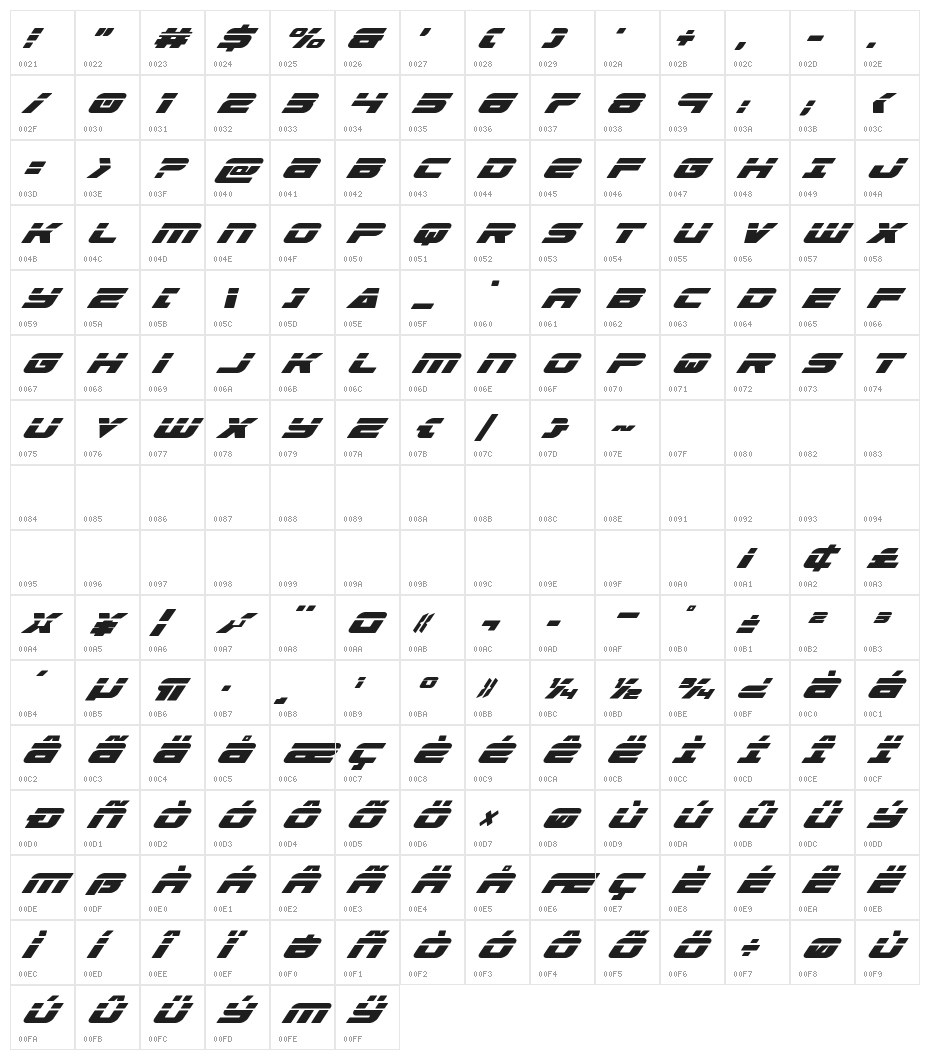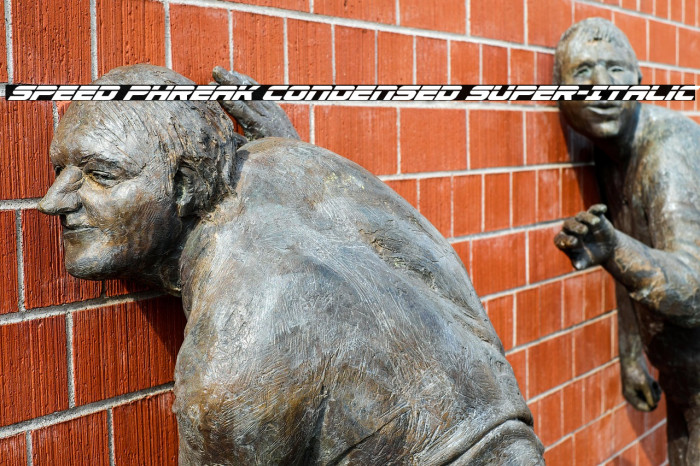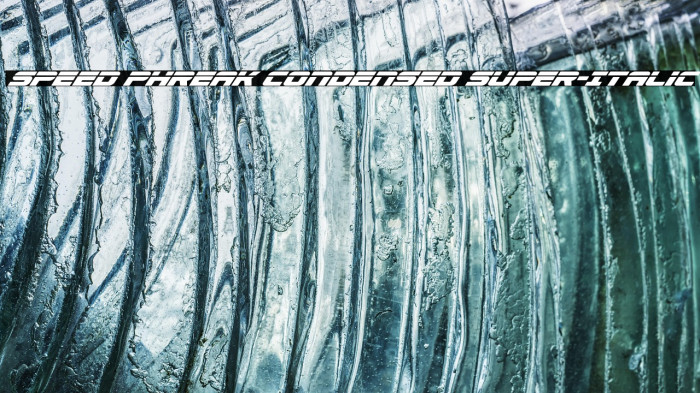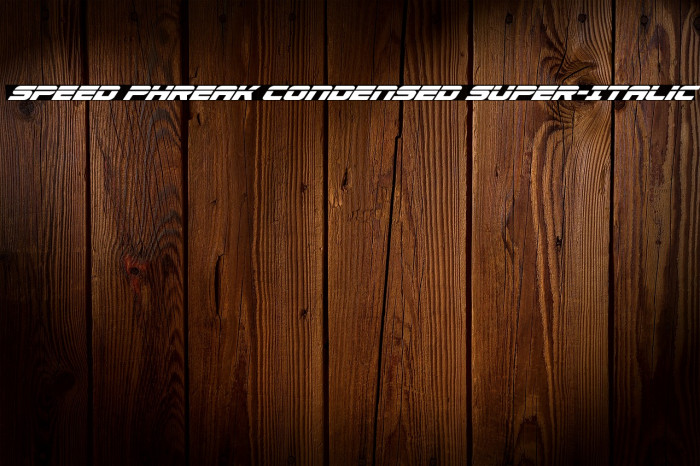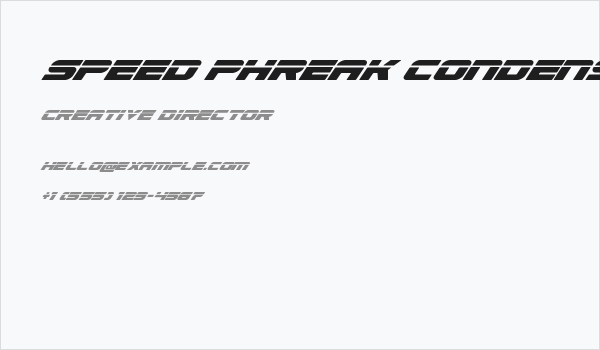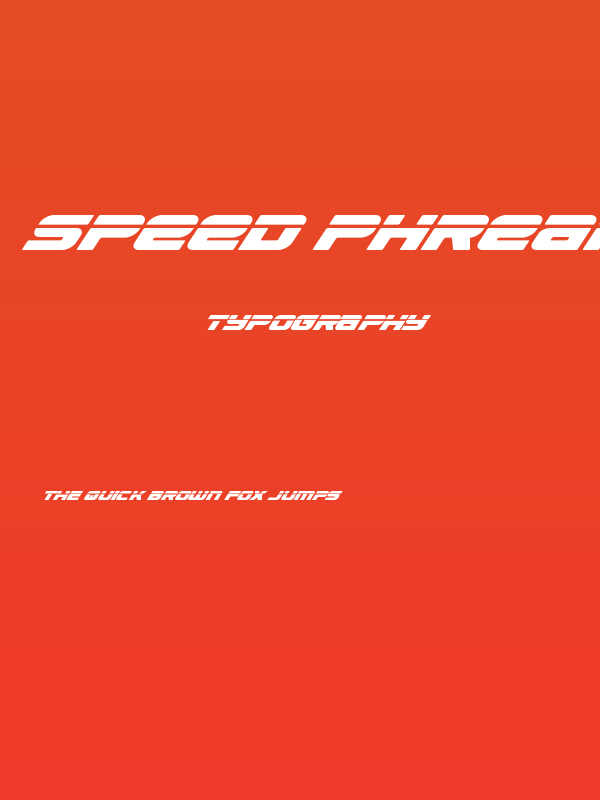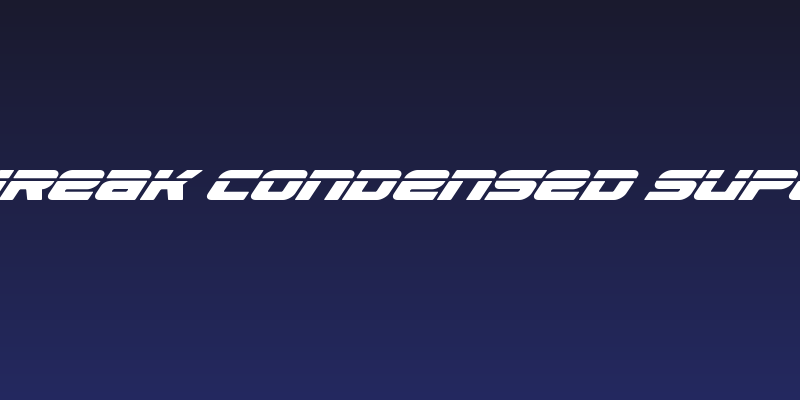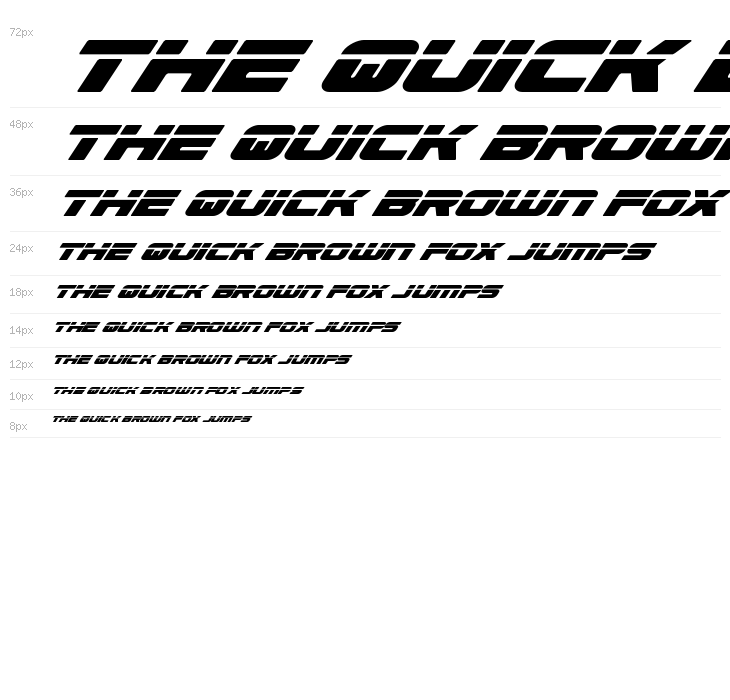
Speed Phreak Condensed Super-Italic Font
Speed Phreak Condensed Super-Italic Description
This font exhibits a dynamic and futuristic style, characterized by its condensed and italicized letterforms. The angular and geometric shapes give it a sense of speed and motion, making it ideal for projects that require a modern and energetic aesthetic. The bold weight and tight character spacing enhance its impact, while the high contrast in stroke thickness adds to its visual appeal. The font's unique design is suitable for attention-grabbing headlines, logos, and branding materials that aim to convey a sense of innovation and forward-thinking.
| Proposed Projects | Ideal for sports branding, automotive advertisements, tech company logos, and dynamic poster designs. |